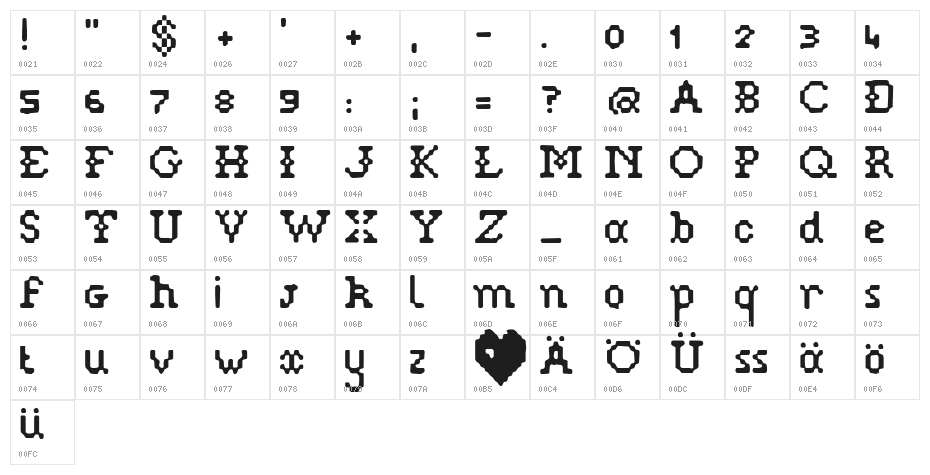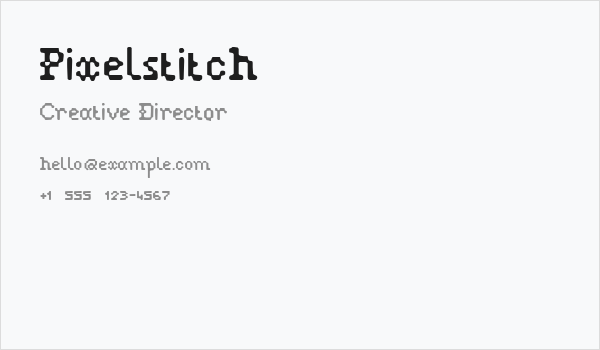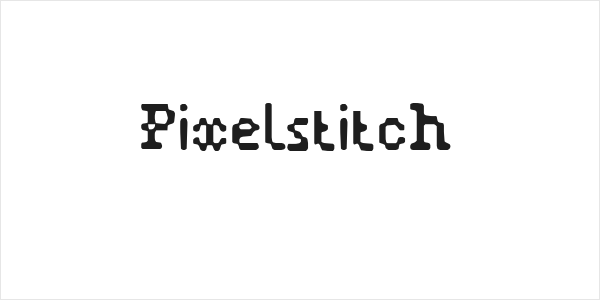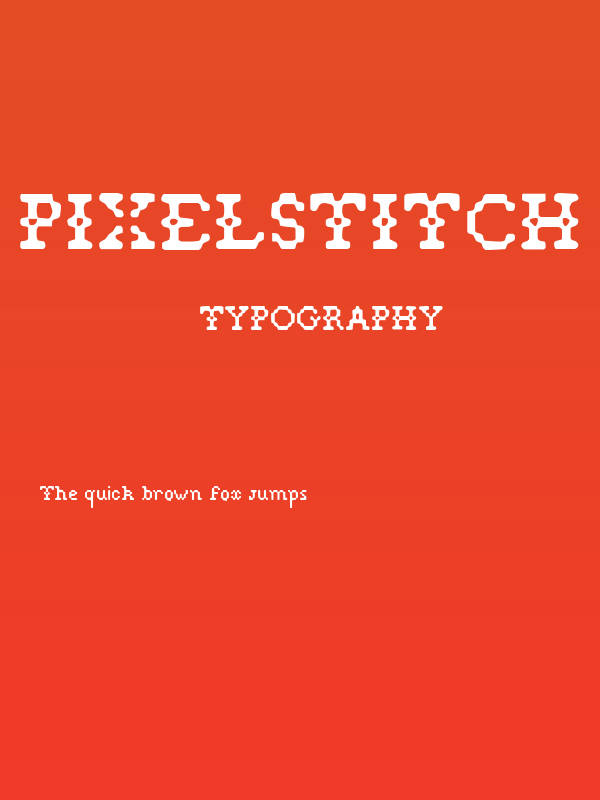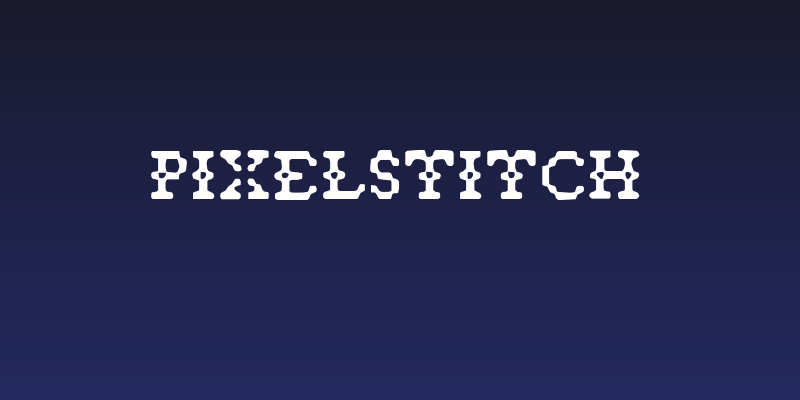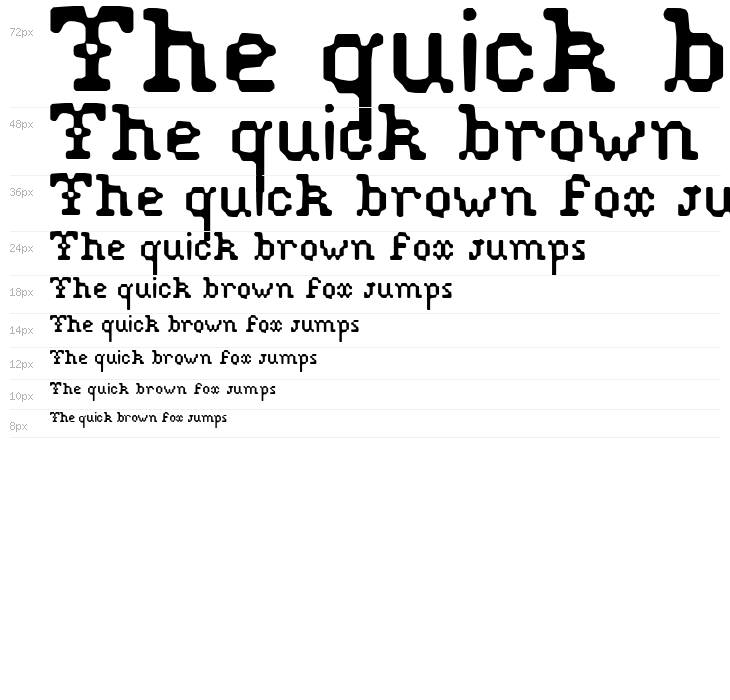
Pixelstitch Font
Pixelstitch Description
This font features a unique, pixelated design that mimics the appearance of cross-stitch patterns. Each character is composed of bold, blocky shapes with a distinct, handcrafted feel. The uppercase and lowercase letters maintain a consistent style, with angular edges and a uniform thickness throughout. Numbers and special characters follow the same aesthetic, providing a cohesive look across all glyphs. The font's playful and decorative nature makes it ideal for projects that require a touch of creativity and nostalgia.
| Proposed Projects | Ideal for crafting projects, digital scrapbooking, retro-themed designs, and playful branding. |